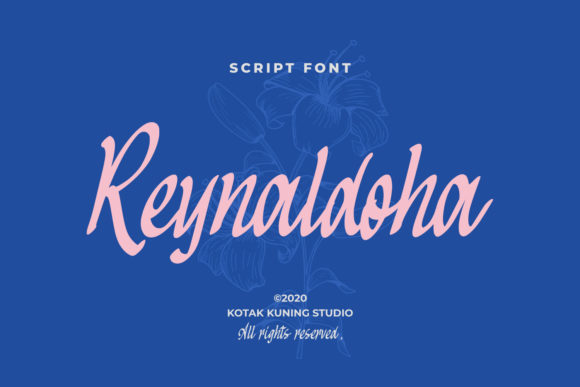
Unleash the elegance and charm of Reynaldoha Font, a captivating script font family designed to elevate your creative expressions. Inspired by the beauty of handwritten strokes, Reynaldoha exudes a natural and authentic touch, adding a personal flair to your designs. Whether you're crafting wedding place cards, love letters, or heartfelt invitations, this font will infuse your words with a touch of timeless romance.
Reynaldoha's graceful curves and sweeping strokes evoke a sense of effortless sophistication, making it the perfect choice for adding a touch of elegance to any project. Experience the joy of using this versatile font and explore its endless variations, allowing your creativity to flourish. Let Reynaldoha's timeless charm captivate your audience and leave a lasting impression.
With its delicate ligatures and flowing characters, Reynaldoha Font breathes life into your words, creating a visual symphony that dances across the page. Its natural, cursive style evokes a sense of authenticity and sincerity, making it ideal for personal branding, wedding stationery, and heartfelt messages.
Immerse yourself in the world of Reynaldoha Font and discover the endless possibilities it offers. Let your imagination soar as you craft stunning designs that exude elegance and charm. Elevate your creative projects to new heights with Reynaldoha and let your words come alive in a symphony of beauty.